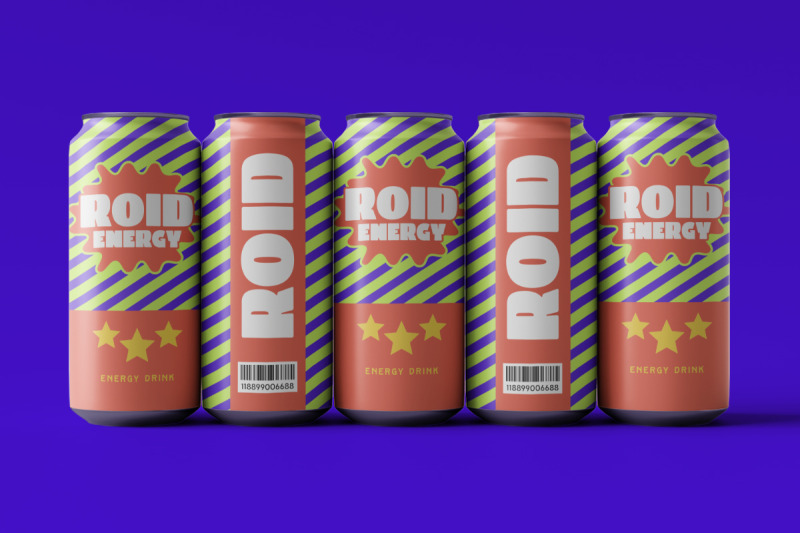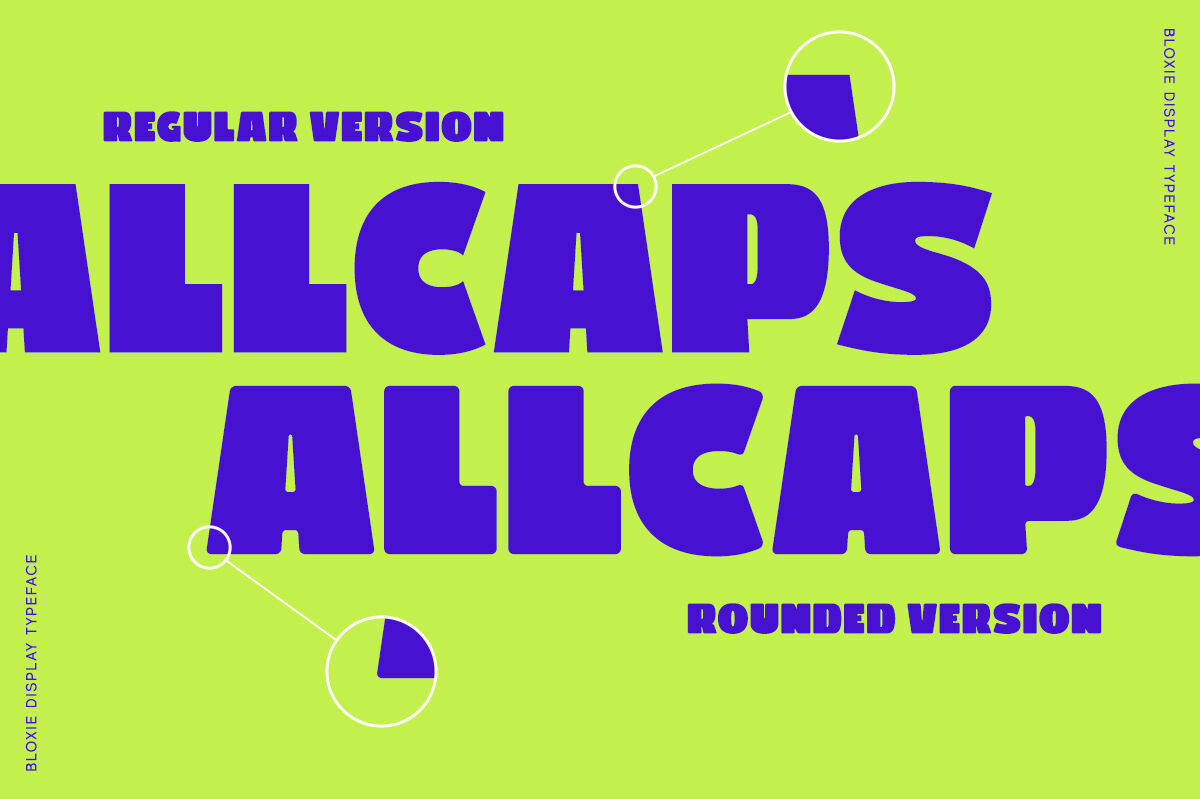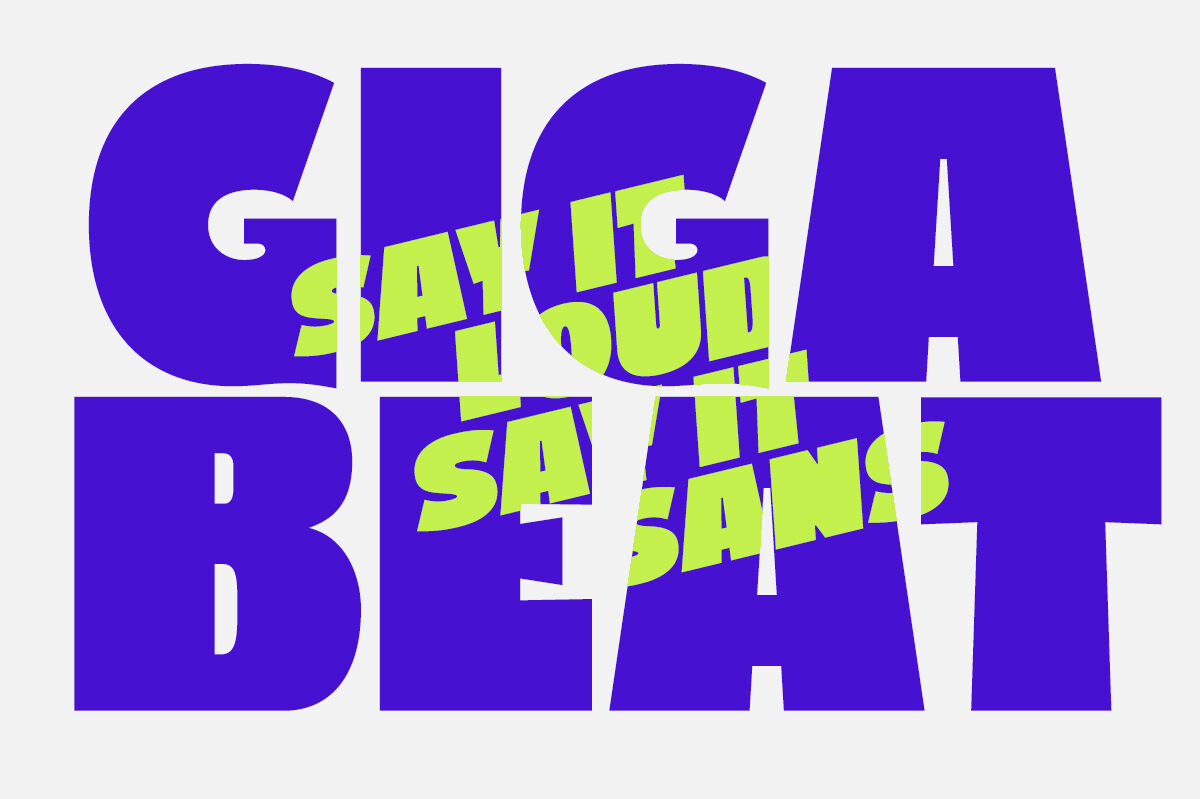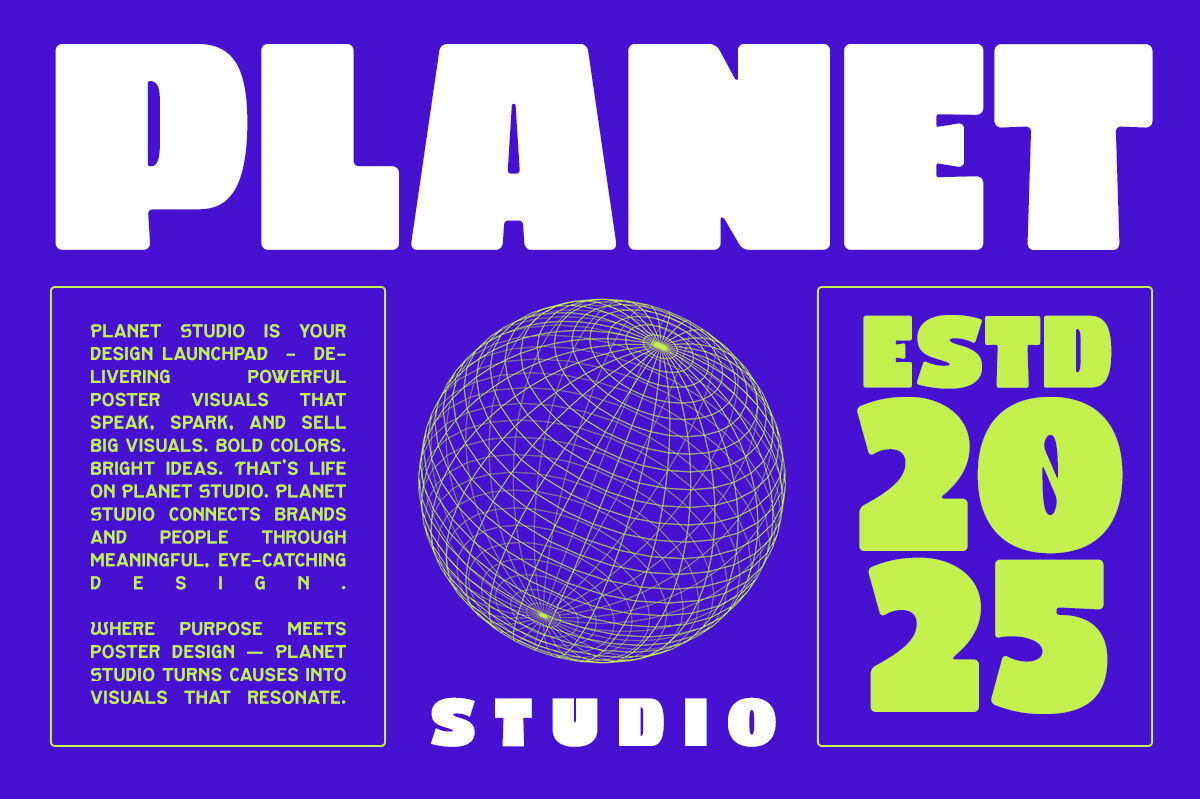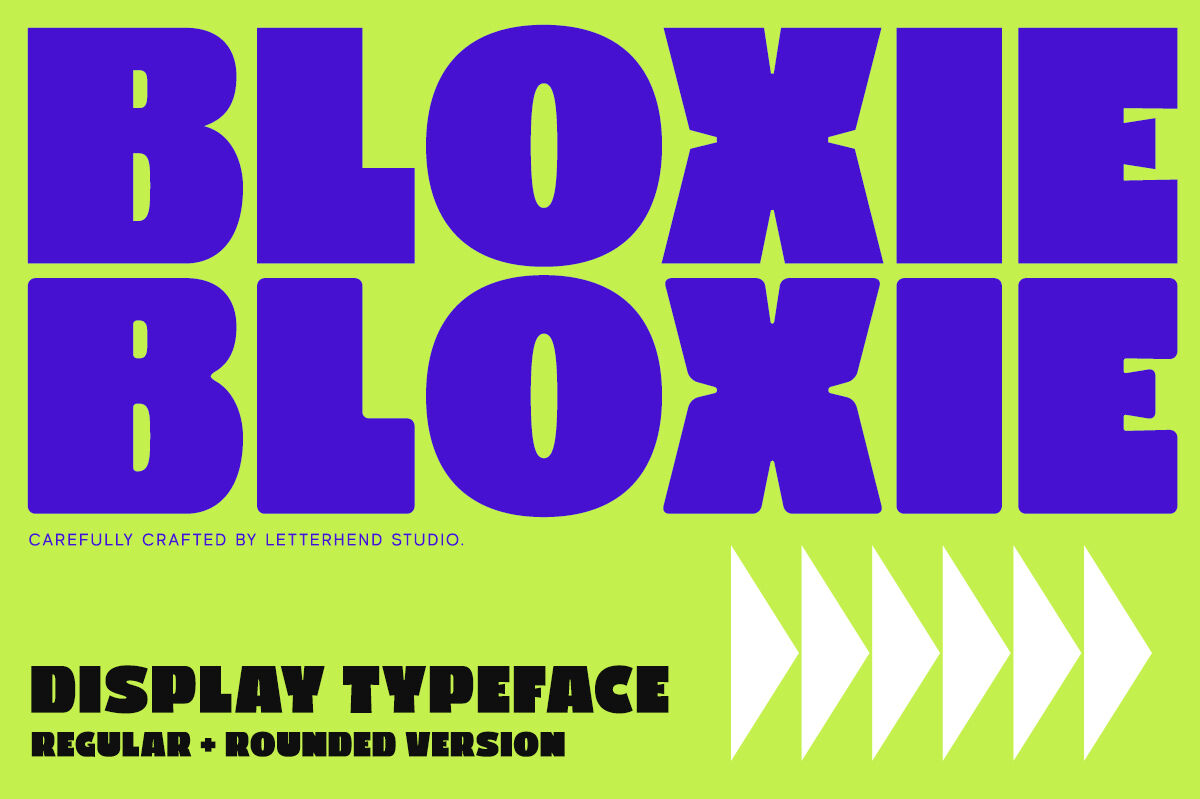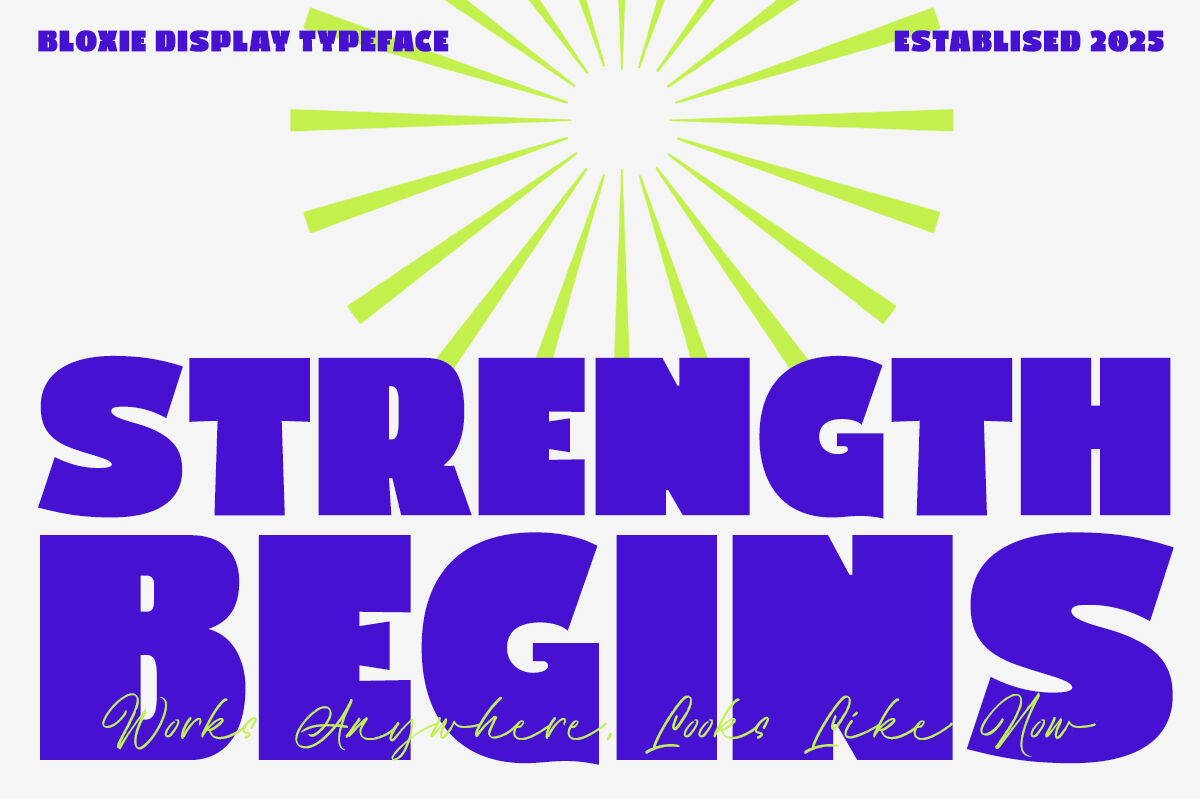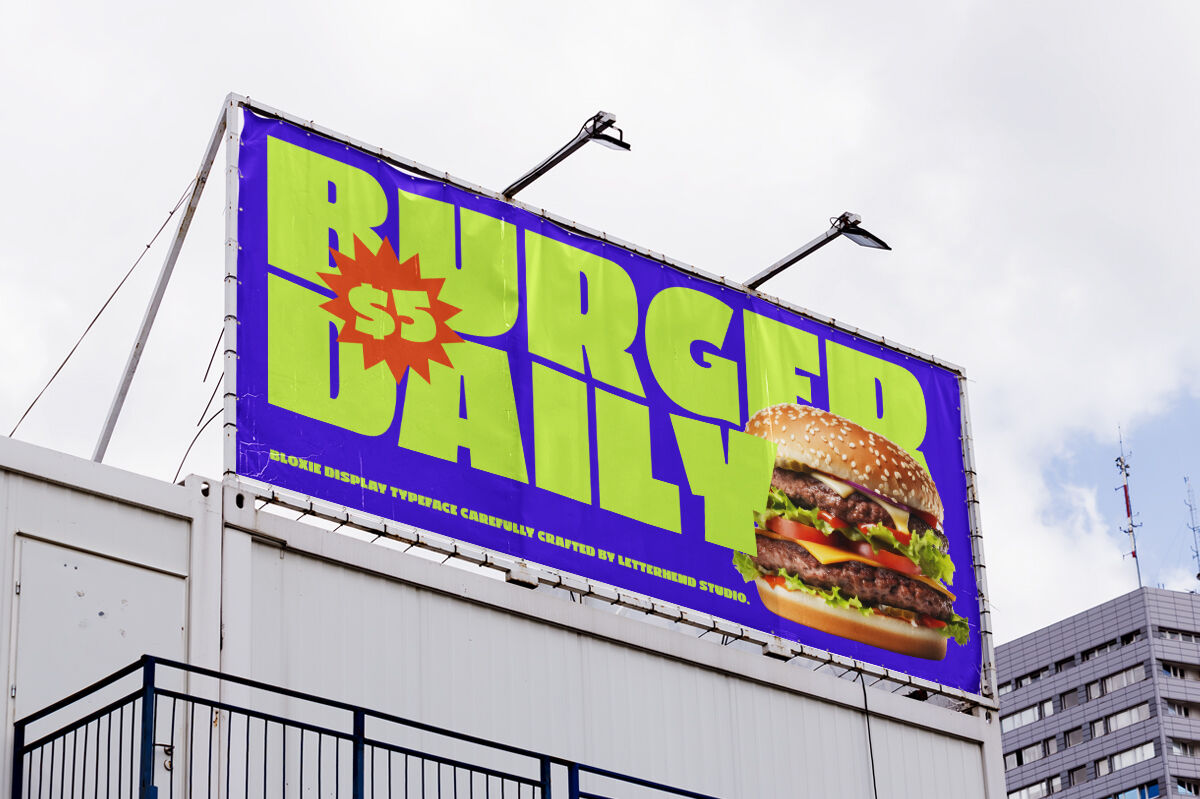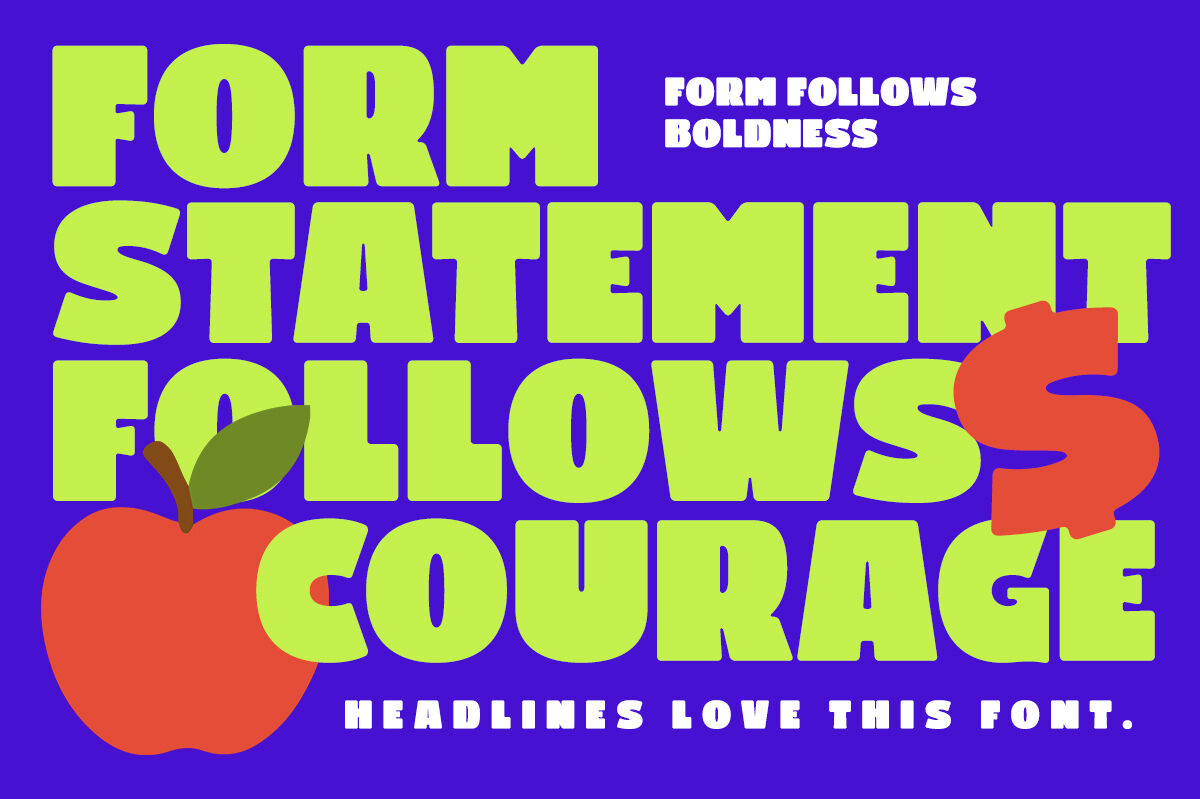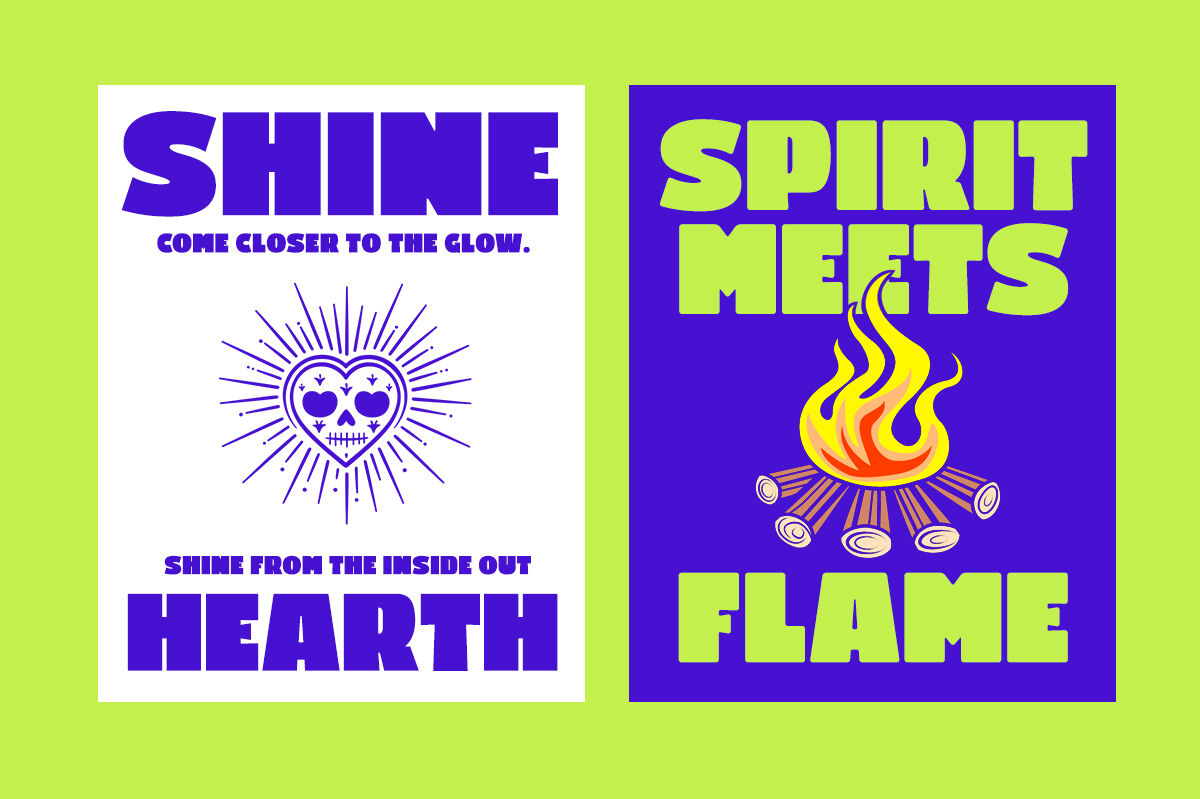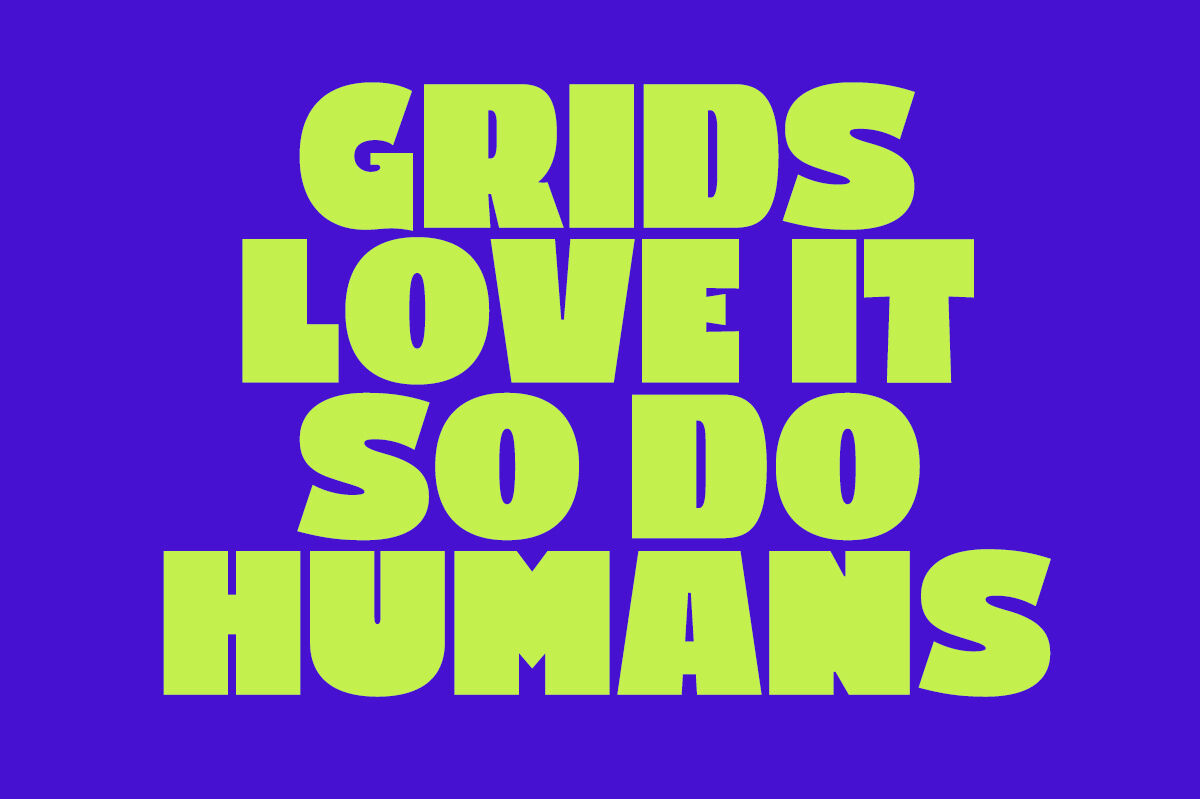
Bloxie is a powerful and bold display typeface, available in both Regular and Rounded styles. It’s a statement-making font designed for maximum impact. With thick, geometric letterforms and a compact structure, it’s perfect for grabbing attention in posters, logos, and headlines. The Regular version delivers a strong, edgy appearance, while the Rounded version softens the tone for a more approachable and playful feel—ideal for versatile branding and impactful design work.
Features :
Uppercase & lowercase
Numbers and punctuation
Alternates Character